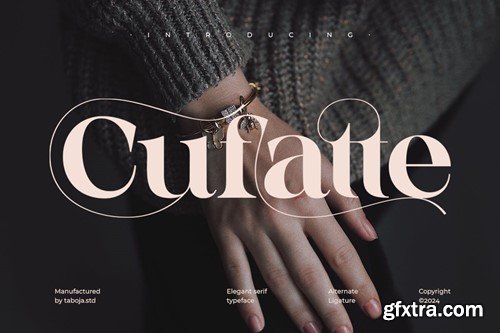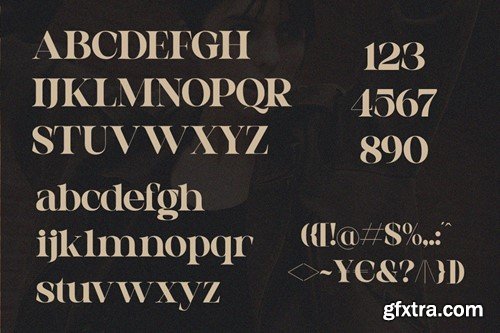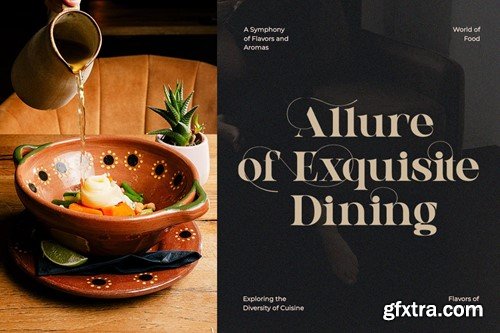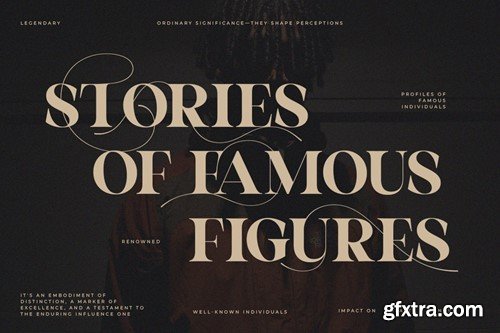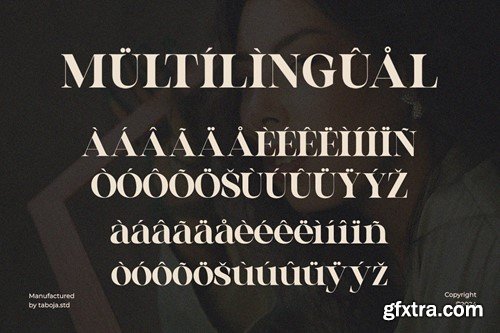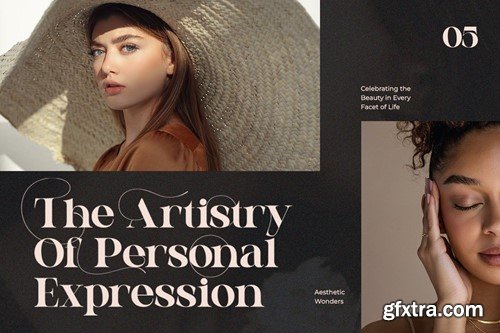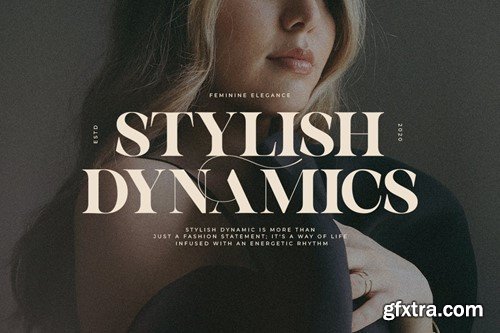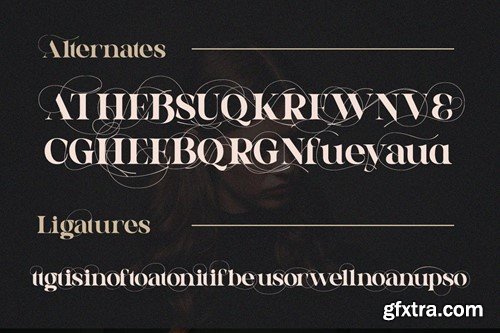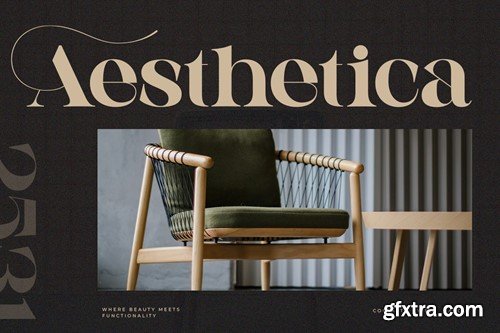
Cufatte - 精致衬线字体 PLZJ6WC
Cufatte is elegant serif typeface, dive into the world of timeless sophistication with our latest font creation, adorned with gentle and elegant swashes. Each letter is meticulously crafted, featuring subtle and graceful flourishes that add a touch of luxury to your design projects. This font perfect for projects that require a vintage feel, such as posters, logos, packaging, and promotional materials that aim to capture a nostalgic and sophisticated atmosphere. This font will add a special touch to your designs and captivate viewers with its retro allure and distinctiveness. Cufatte Features: While using this product, if you encounter any problem or spot something we may have missed, please don't hesitate to drop us a message. We'd love to hear your feedbacks in order to further fine-tune our products. Stay creative and have a wonderful day